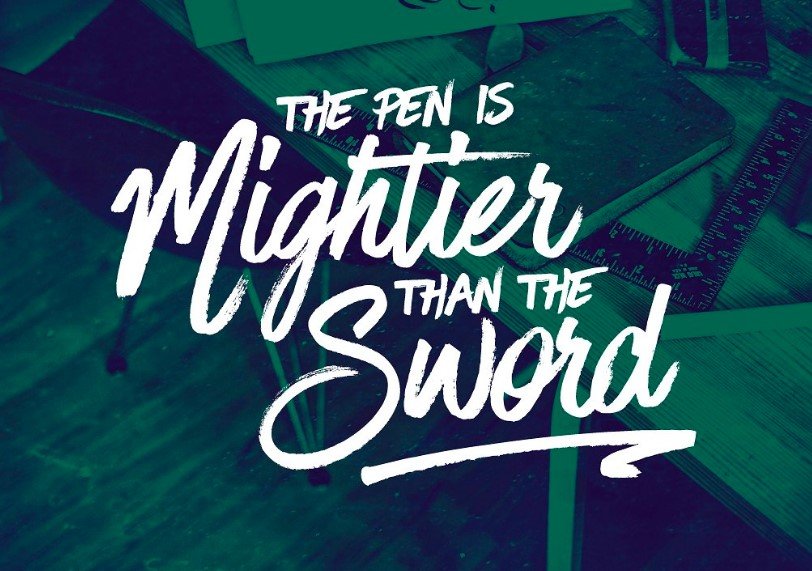
Introducing the most popular hand-drawn typeface perfect for logo design and other projects requiring written text. Welcome the Have Heart Font, one of the top typefaces globally.
The font has handy look and catchy designs which can be adjust in all the designs you have made with this font. We suggest you to use this font with the combination of gucci font to get an amazing results.
The font has x-axis height and y-axis strokes which make it unique from others. Lets deep dive into more details of this font. Below we provide an image in which the sample character of this font has.
View Of Have Heart Font
Now, the time is came to view the sample the of great typeface. Below, we shared an image that contains the glyphs and characters of this amazing font which creates best designs in Adobe photoshop and Adobe Illustrator.
Have Heart Font View
This is great brushed and hand written typeface that is best for designing logos, facebook posters and covers.
This unque and elegant font that looks like varsity font which has so many users around the world that can also be used in pairing also. That’s why each designer treated it as a really perfect font in all appreciate.
What Type of Font Is Have Heart?
The Have Heart Font is the famous brushed typeface that was designed by the popular graphic designer Set Sail Studios